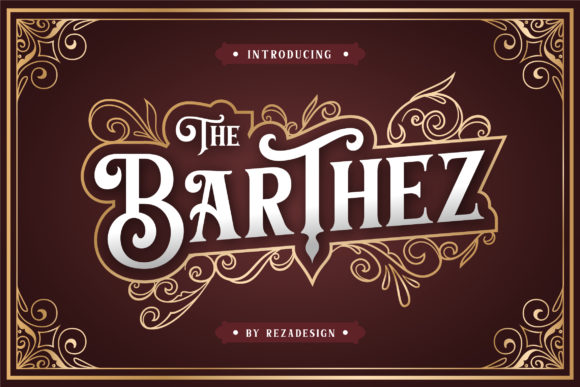
Barthez Font: Elevate Your Design with a Bold and Retro Flair
The world of typography is vast and diverse, with countless font styles to choose from, each with its unique character and charm. Among these, the Barthez font stands out for its bold, retro aesthetic and strong feel, making it an excellent choice for designers looking to make their projects truly stand out. In this comprehensive guide, we’ll explore the Barthez font in detail, discussing its origins, characteristics, and most importantly, how to effectively use it in your design projects.
What is Barthez Font?
Barthez is a bold and retro display font designed to give your design projects a strong and distinctive look. Its unique blend of classic and modern elements makes it versatile for various applications, from branding and advertising to packaging and digital media.
Key Features of Barthez Font
- Bold and Strong Feel: The font’s bold strokes and strong lines ensure that your text does not go unnoticed, making it perfect for headlines, titles, and any design element you want to emphasize.
- Retro Display Font: With its roots in classic typography, Barthez brings a touch of nostalgia to your designs, making them more engaging and memorable.
- Versatility: Despite its bold nature, Barthez can be surprisingly versatile, suitable for a wide range of projects, from vintage-themed designs to modern, minimalist aesthetics.
Tips for Effective Use of Barthez Font
To maximize the impact of Barthez in your designs, consider the following tips:
- Pair with Simpler Fonts: For body text, pair Barthez with simpler, easy-to-read fonts to create contrast and ensure readability.
- Use in Moderation: While Barthez is undeniably eye-catching, use it sparingly to avoid overwhelming your audience.
- Experiment with Colors and Effects: Take advantage of Barthez’s bold lines and experiment with different colors, gradients, and text effects to further enhance its appearance.
Barthez font, with its bold and retro display characteristics, offers designers a powerful tool to make their projects stand out. Its versatility, coupled with its strong aesthetic, makes it suitable for a variety of applications, from branding and advertising to web design and packaging. By understanding its features, exploring creative uses, and applying tips for effective use, designers can leverage Barthez to create visually compelling and memorable designs.